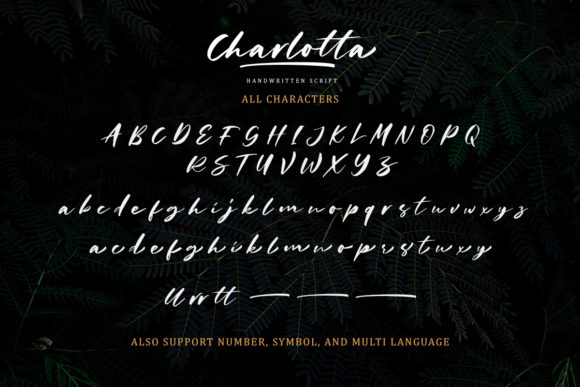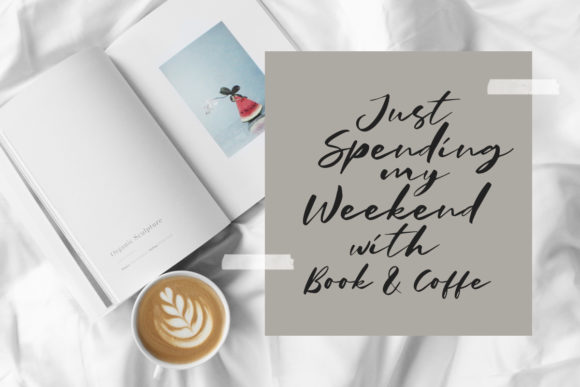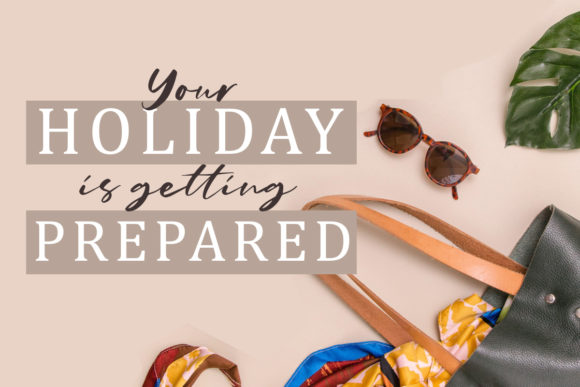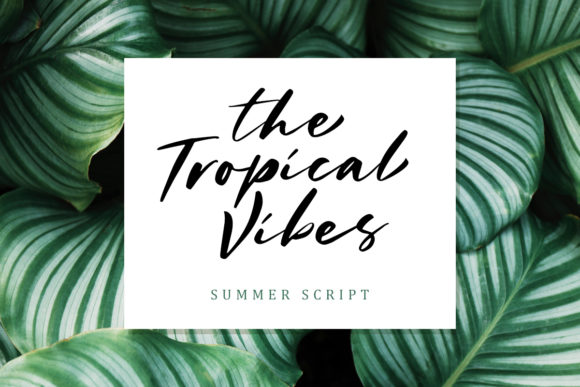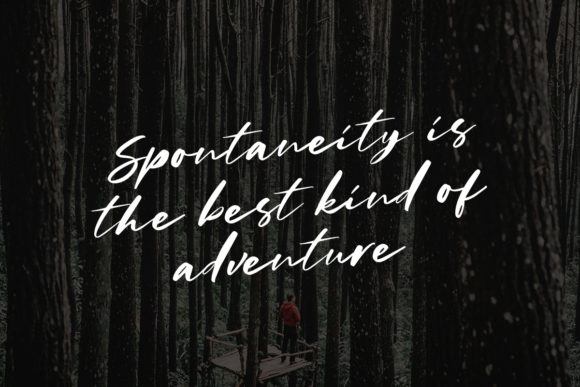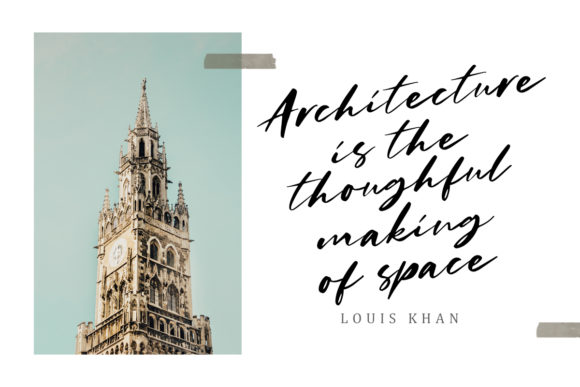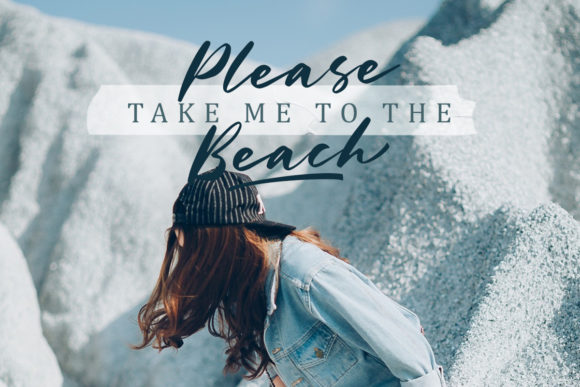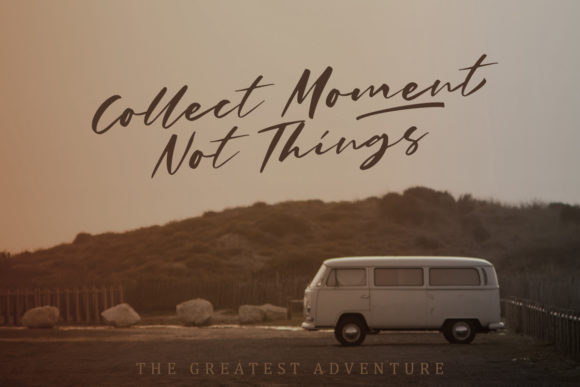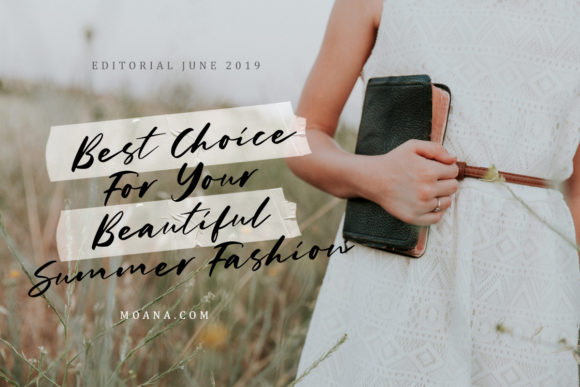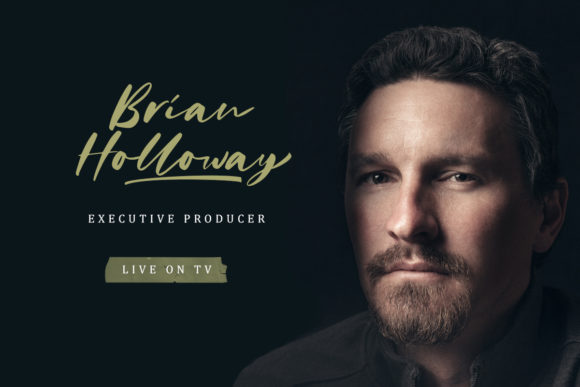
Charlotta Font
About Charlotta Font
Charlotta Script is a natural handwritten script with a contemporary feel. Use it to add a modern charm to any design project.